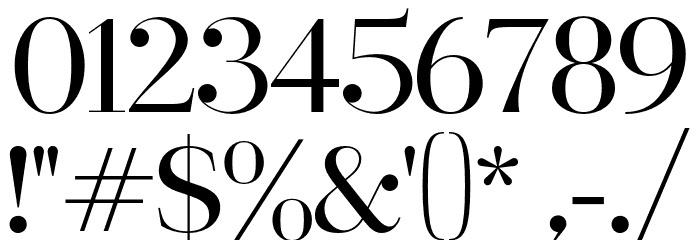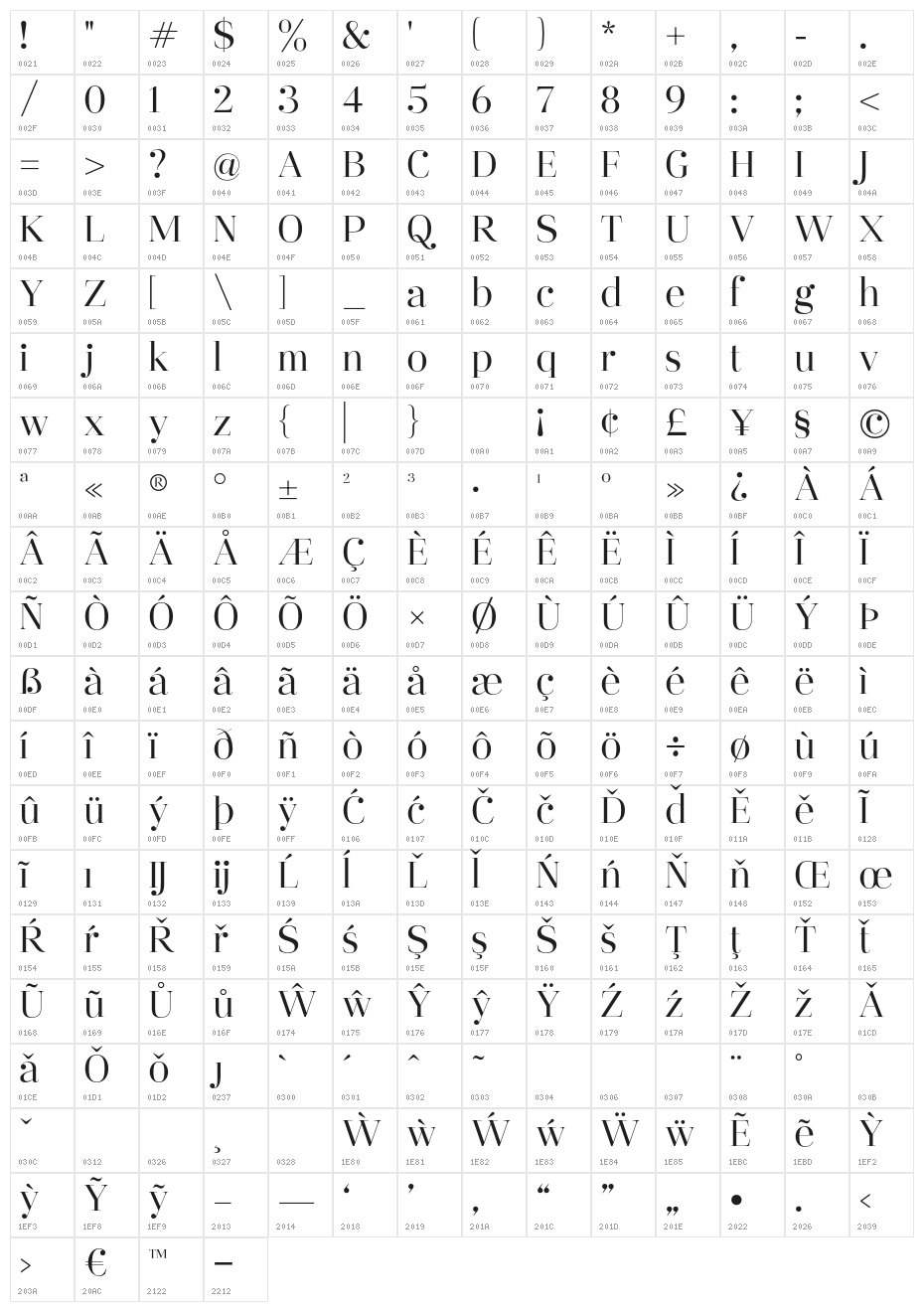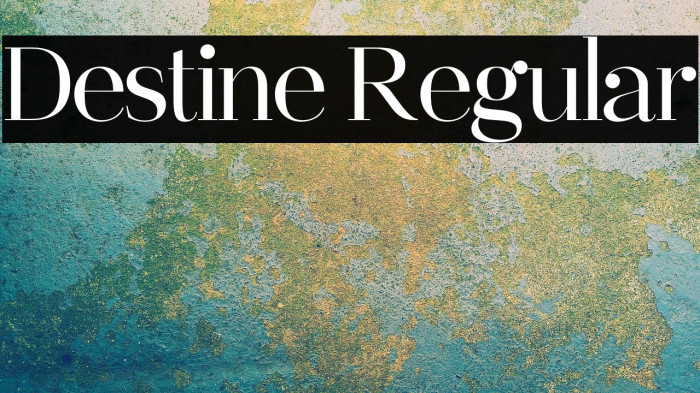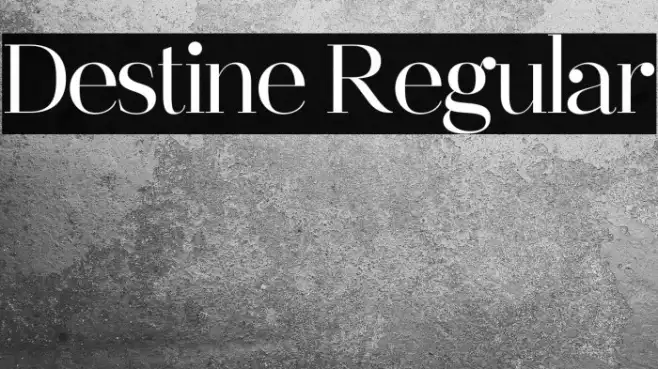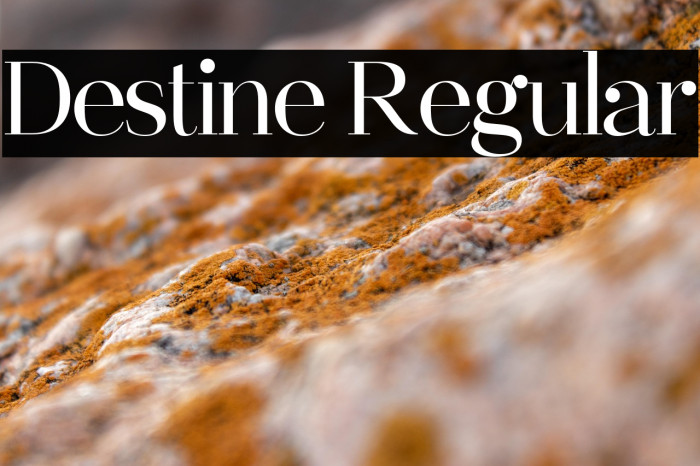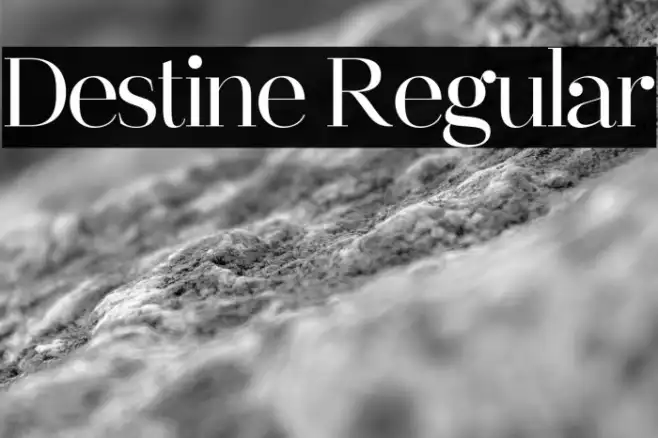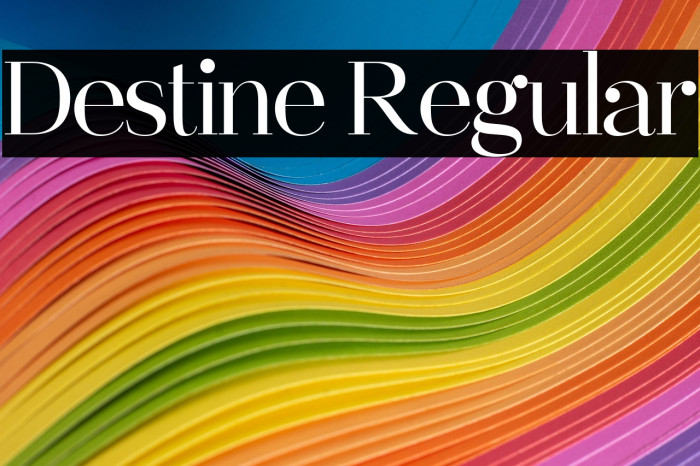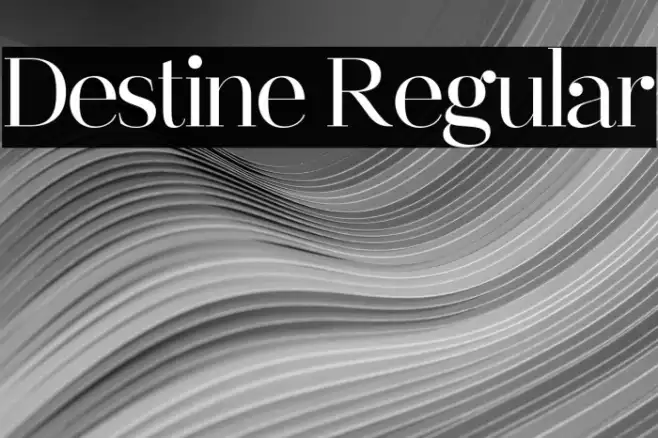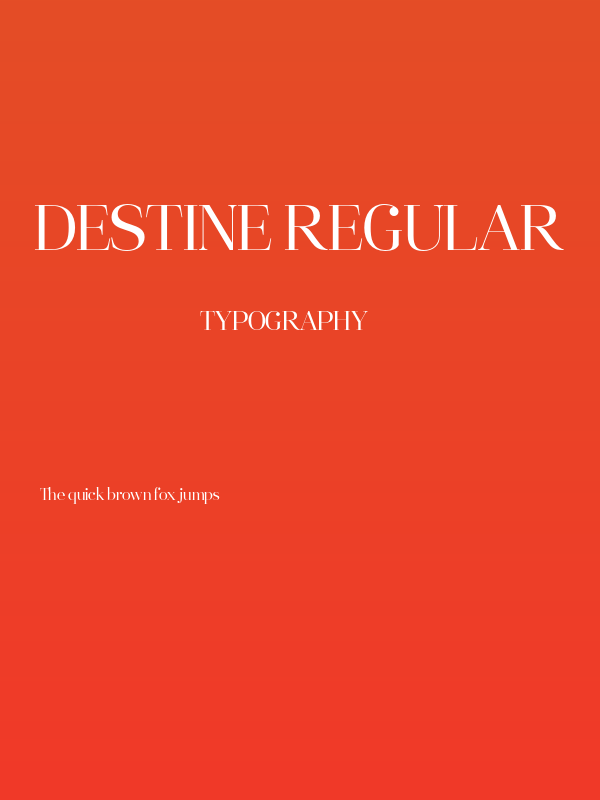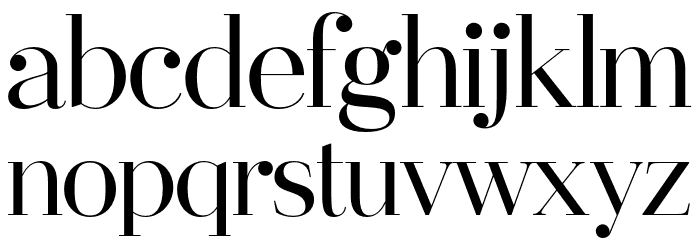
Destine Regular Font
Destine Regular Description
This font exhibits a sophisticated and elegant design, characterized by its high contrast between thick and thin strokes. The serifs are sharp and pronounced, adding a touch of classic elegance. The uppercase letters are tall and commanding, while the lowercase letters maintain a harmonious balance with slightly rounded forms. The numerals are distinct and easy to read, with a consistent style that complements the alphabetic characters. Special characters are designed with the same attention to detail, ensuring a cohesive look across all glyphs. This font's refined style makes it suitable for a variety of formal and creative applications.
| Use Case | Headlines, Logos, Editorial design |
| Proposed Projects | Ideal for luxury branding, editorial design, wedding invitations, and high-end product packaging. |